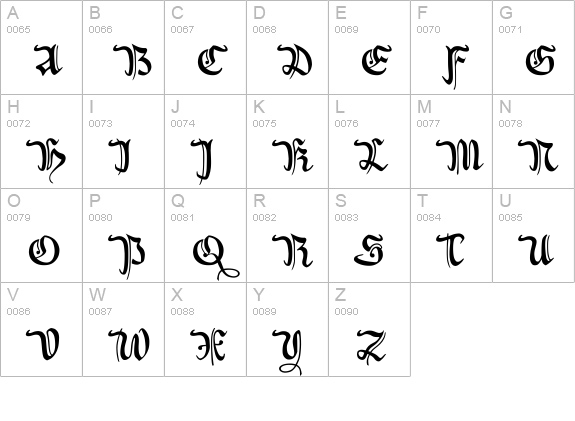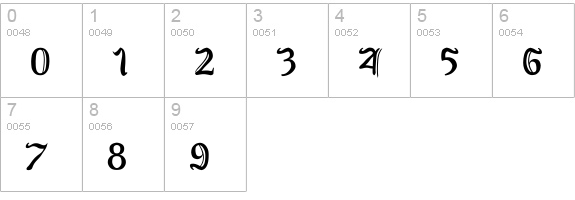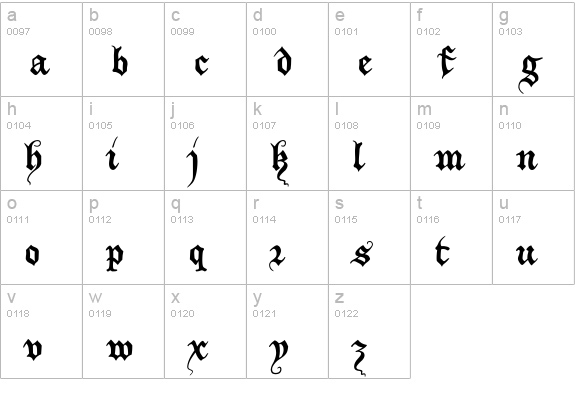
XiBeronne Font Details
XiBeronne is a modern and elegant font that exudes sophistication and style. With its sleek lines and subtle curves, this typeface is perfect for adding a touch of class to any design project. Whether you're creating a logo, website, or print materials, XiBeronne will make your text stand out and capture the attention of your audience. The best part? XiBeronne is completely free to download at FontsMarket.com. That's right, you can access this stunning font at no cost and use it in your projects without any restrictions. Don't miss out on the opportunity to elevate your designs with this versatile and eye-catching typeface. Download XiBeronne today and see the difference it can make in your work.